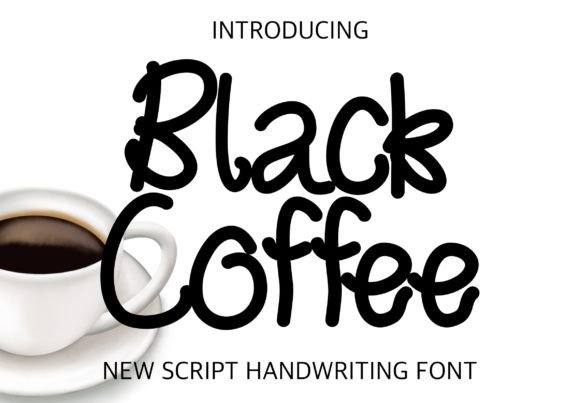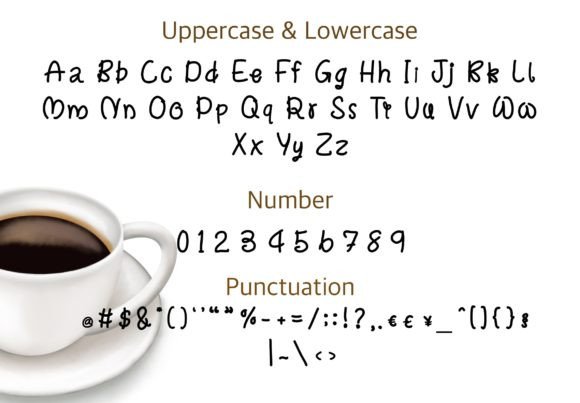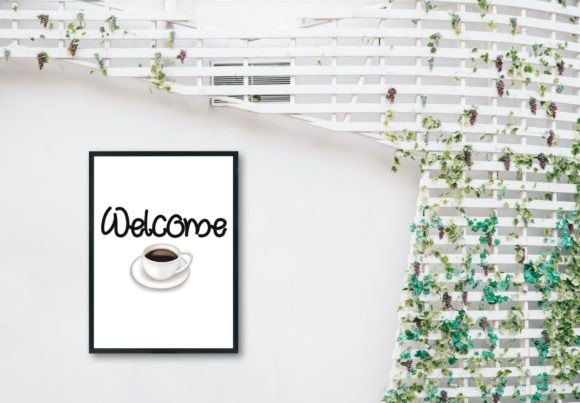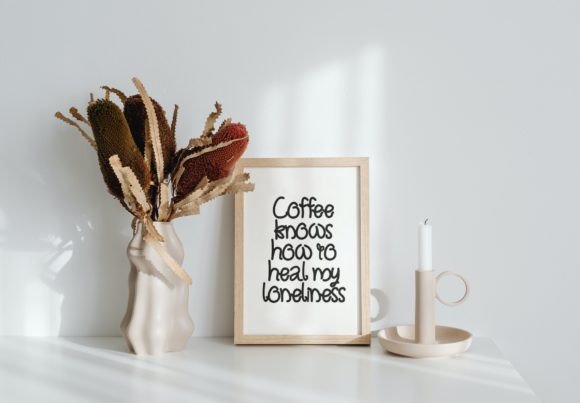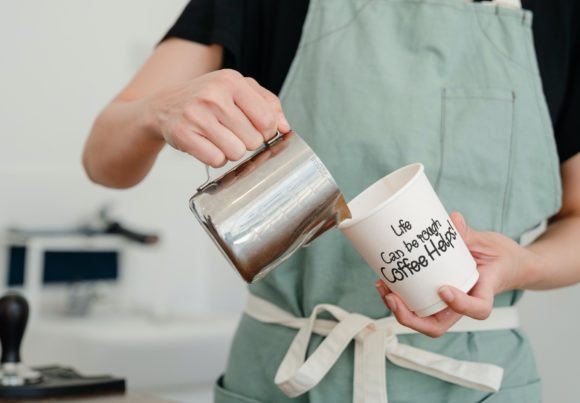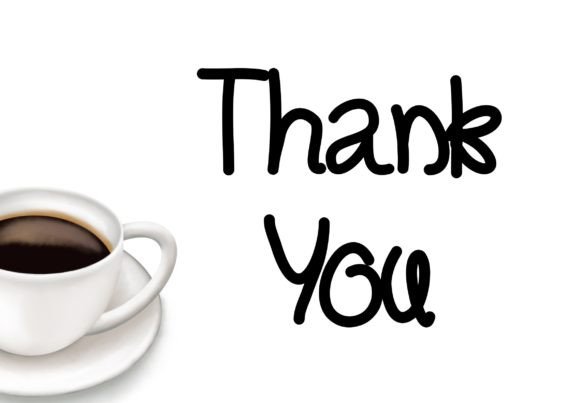
About Black Coffee Font
“Black Coffee” is a charming and friendly handwritten font that exudes a sense of warmth and approachability. Its cute and personable design makes it a wonderful choice for a wide range of design applications that require a personalized and distinctive touch. Whether you’re working on wedding invitations, thank-you cards, greeting cards, logos, or any other project, “Black Coffee” adds a touch of beauty and uniqueness to your designs.
The font’s cute and friendly character lends a sense of charm and authenticity to your creative work, making it stand out and resonate with your audience. “Black Coffee” is versatile and adaptable to various design contexts, allowing you to infuse your projects with a sense of creativity and approachability.
In the world of design, fonts play a pivotal role in conveying emotions, setting the mood, and creating a lasting impression. “Black Coffee” excels in these aspects by offering a handwritten style that is both beautiful and endearing. Its aesthetics add an authentic and personal touch to your projects, making them more engaging and memorable.
In summary, “Black Coffee” is more than just a font; it’s a cute and friendly design tool for infusing warmth and approachability into your designs. Its personable handwritten style makes it a top choice for designers seeking to add a personalized and distinctive flair to their work. Whether you’re an experienced designer or just beginning your creative journey, “Black Coffee” is the font that can help you create designs that are truly special and heartwarming.